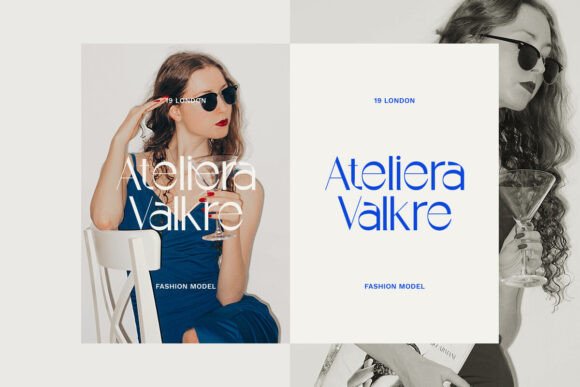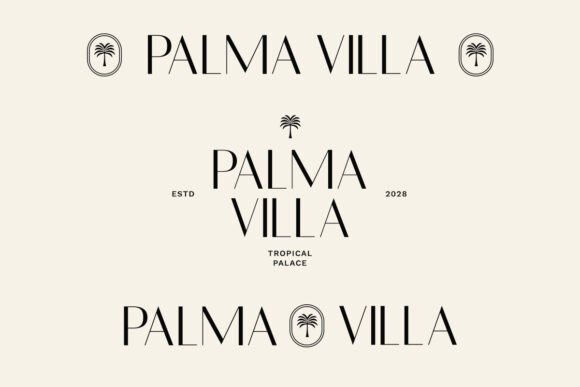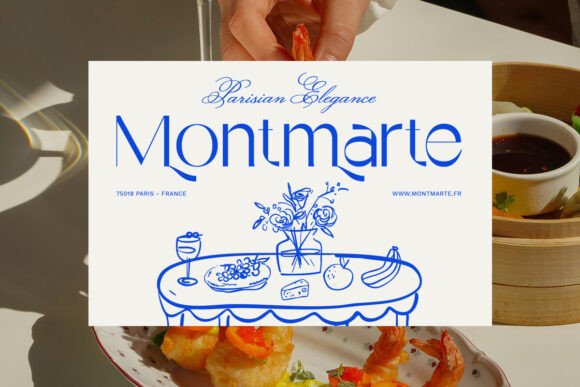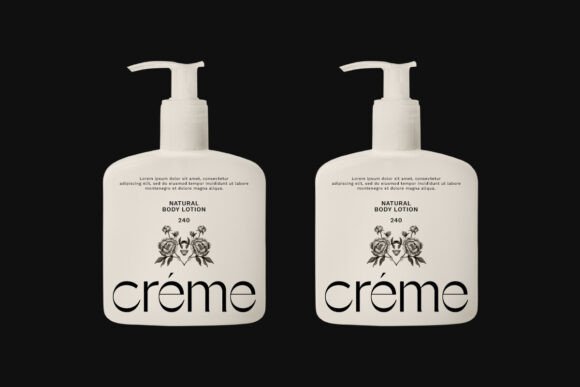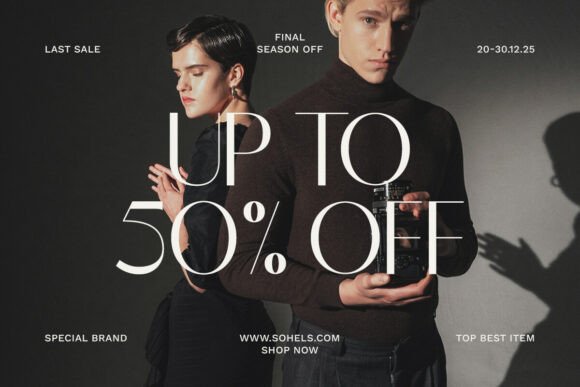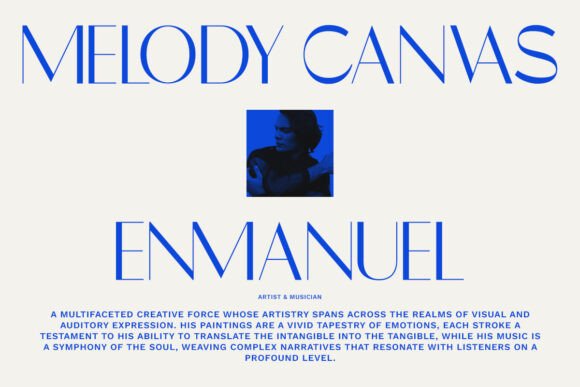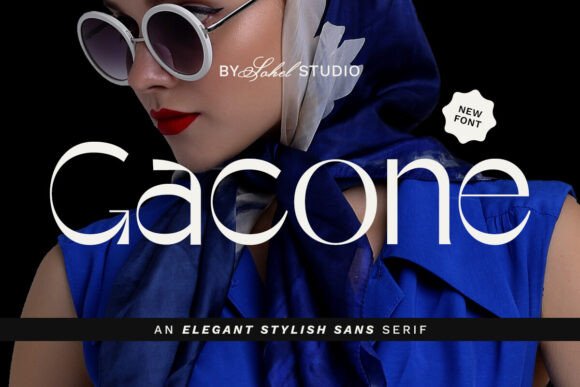
Introducing Gacone Font: Elevate Your Designs with Elegance and Sophistication
In the world of typography, a well-crafted font can make all the difference in elevating your design to new heights. For designers and crafters seeking a refined and sophisticated look, Gacone Font is an exceptional choice. This sleek sans serif font is specifically designed for modern branding, editorial projects, and high-end packaging, offering a stylish appearance that exudes luxury and poise.
The Characteristics of Gacone Font
Gacone Font boasts smooth curves and balanced proportions, making it an ideal choice for a wide range of applications. Its refined features and elegant lines create a sense of sophistication, perfect for luxury branding, fashion designs, magazines, creative typography, and corporate identities. Whether you’re working on a high-end brand, beauty product, wedding stationery, or elegant editorial layout, Gacone Font delivers a professional and contemporary touch.
Gacone Font’s versatility makes it suitable for numerous design projects. Some of the ideal applications for this font include:
- Logos: Create a lasting impression with a custom logo that showcases your brand’s elegance and sophistication.
- Business Cards: Stand out from the crowd with a business card design that exudes professionalism and style.
- Social Media Graphics: Elevate your social media presence with eye-catching graphics that reflect your brand’s luxurious image.
- Website Headers: Create a stunning first impression with a website header that sets the tone for your brand’s online presence.
- Advertising: Craft compelling ads that capture attention and convey a sense of sophistication.
- Invitations: Make your special occasions unforgettable with elegant invitations that showcase your refined taste.
- Minimalist Packaging: Create a lasting impression with packaging designs that exude simplicity and luxury.
Why Choose Gacone Font?
In a world where typography plays a crucial role in design, Gacone Font stands out from the crowd. Here are just a few reasons why designers and crafters are drawn to this exceptional font:
- Elegance: Gacone Font’s refined features and smooth curves create a sense of elegance that elevates any design.
- Sophistication: This font’s balanced proportions and sleek lines convey a sense of sophistication, perfect for high-end branding and luxury designs.
- Versatility: Gacone Font’s versatility makes it suitable for a wide range of design projects, from logos and business cards to website headers and packaging.
- Professionalism: This font’s clean and modern design ensures that your work looks professional and polished.
Tips for Using Gacone Font Effectively
To get the most out of Gacone Font, consider the following tips:
- Pair with contrasting fonts: Combine Gacone Font with contrasting fonts to create visual interest and add depth to your design.
- Experiment with colors: Try out different color schemes to find the perfect combination that complements your brand’s image.
- Pay attention to spacing: Ensure that your text is easy to read by paying attention to spacing and kerning.
- Use it consistently: Use Gacone Font consistently across your design projects to create a cohesive brand image.
Gacone Font is an exceptional choice for designers and crafters seeking to elevate their designs with elegance and sophistication. Its refined features, smooth curves, and balanced proportions make it perfect for luxury branding, fashion designs, magazines, creative typography, and corporate identities. With its versatility and professional appearance, Gacone Font is sure to become a staple in your design toolkit. Whether you’re working on a high-end brand, beauty product, wedding stationery, or elegant editorial layout, this font delivers a professional and contemporary touch that will leave a lasting impression.